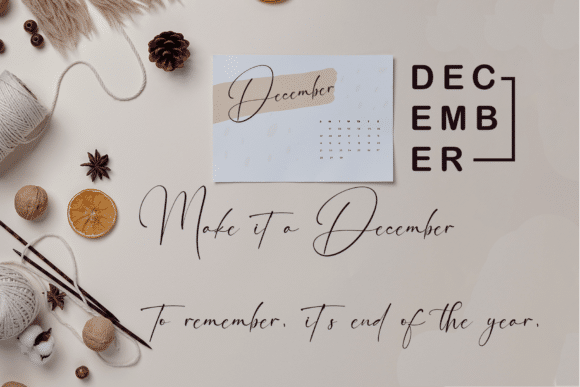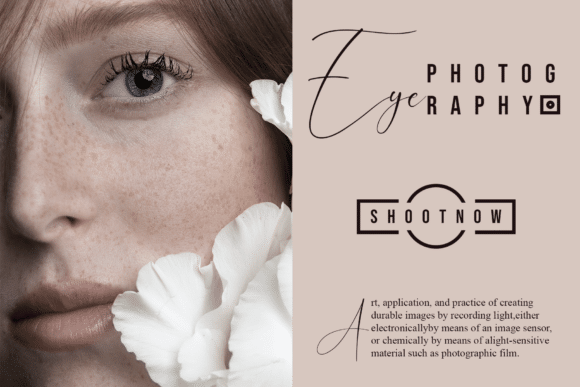
Gathering Day Font
Gathering Day is a modern and playful script font. It’s great for crafters and designers. This versatile script font has a wide spectrum of applications ranging from greeting cards to headlines and is guaranteed to add a romantic feel to your next project.